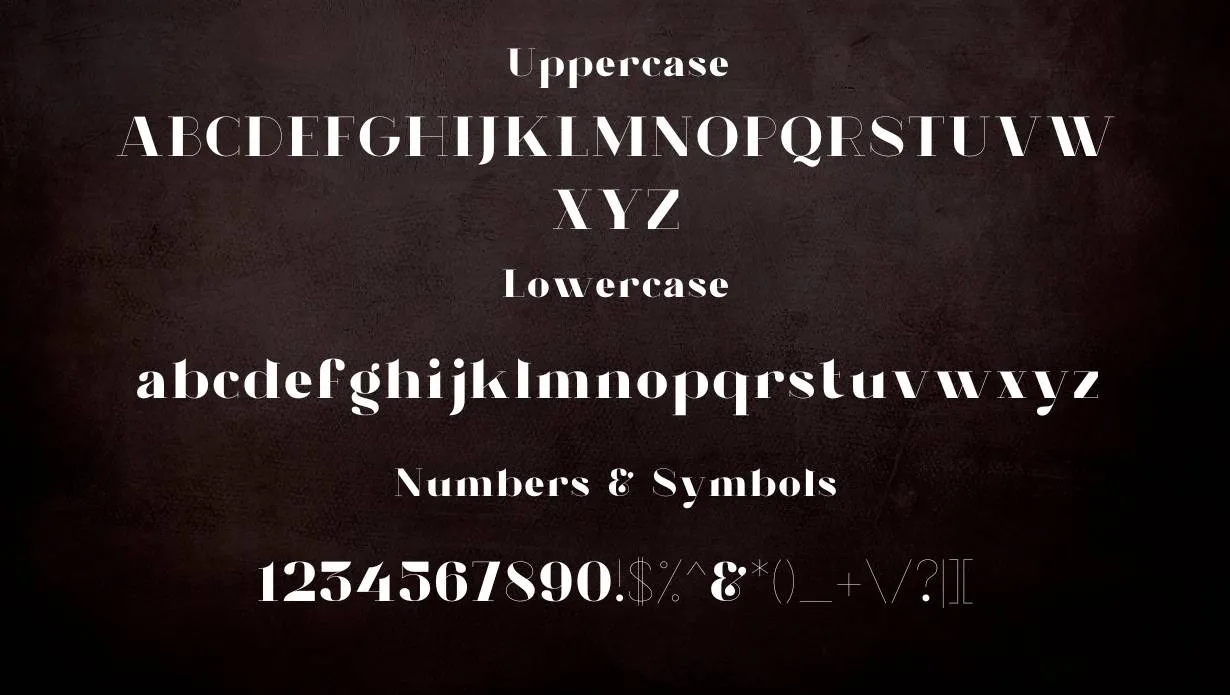
Chronos font is like a timeless melody, adding a sense of continuity to your words. Perfect for historical documents or narratives, it creates a connection with the past. The gracefully medium weight provides a balanced and harmonious appearance, and its neutrally proportioned width ensures a timeless tale through your written expressions.
Chronos is the font that weaves a thread of continuity, making it ideal for messages that require a sense of historical connection.
| Name | Chronos Font |
| Designer | Robert Slimbach |